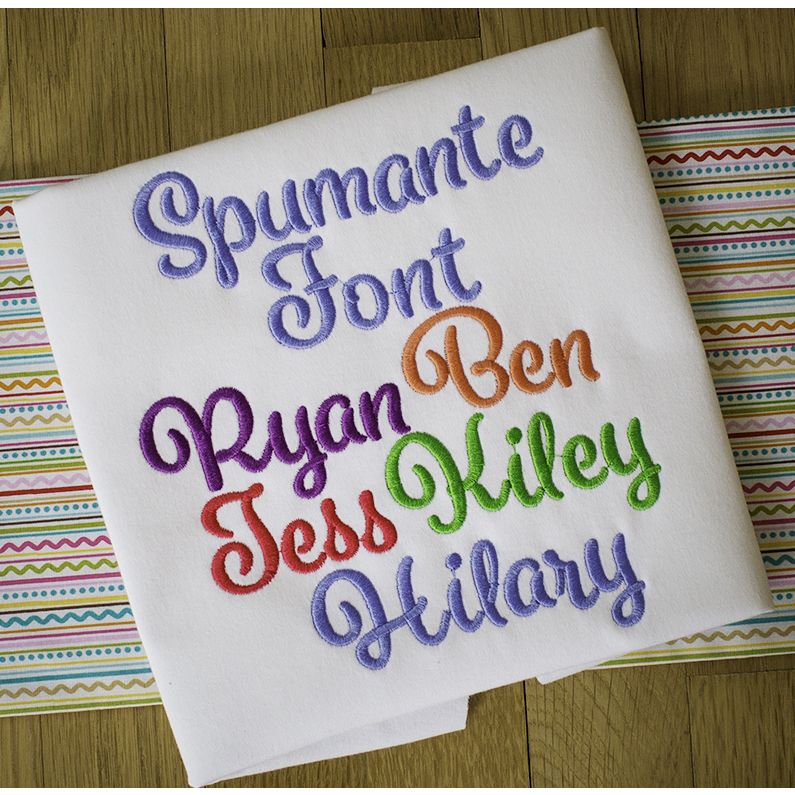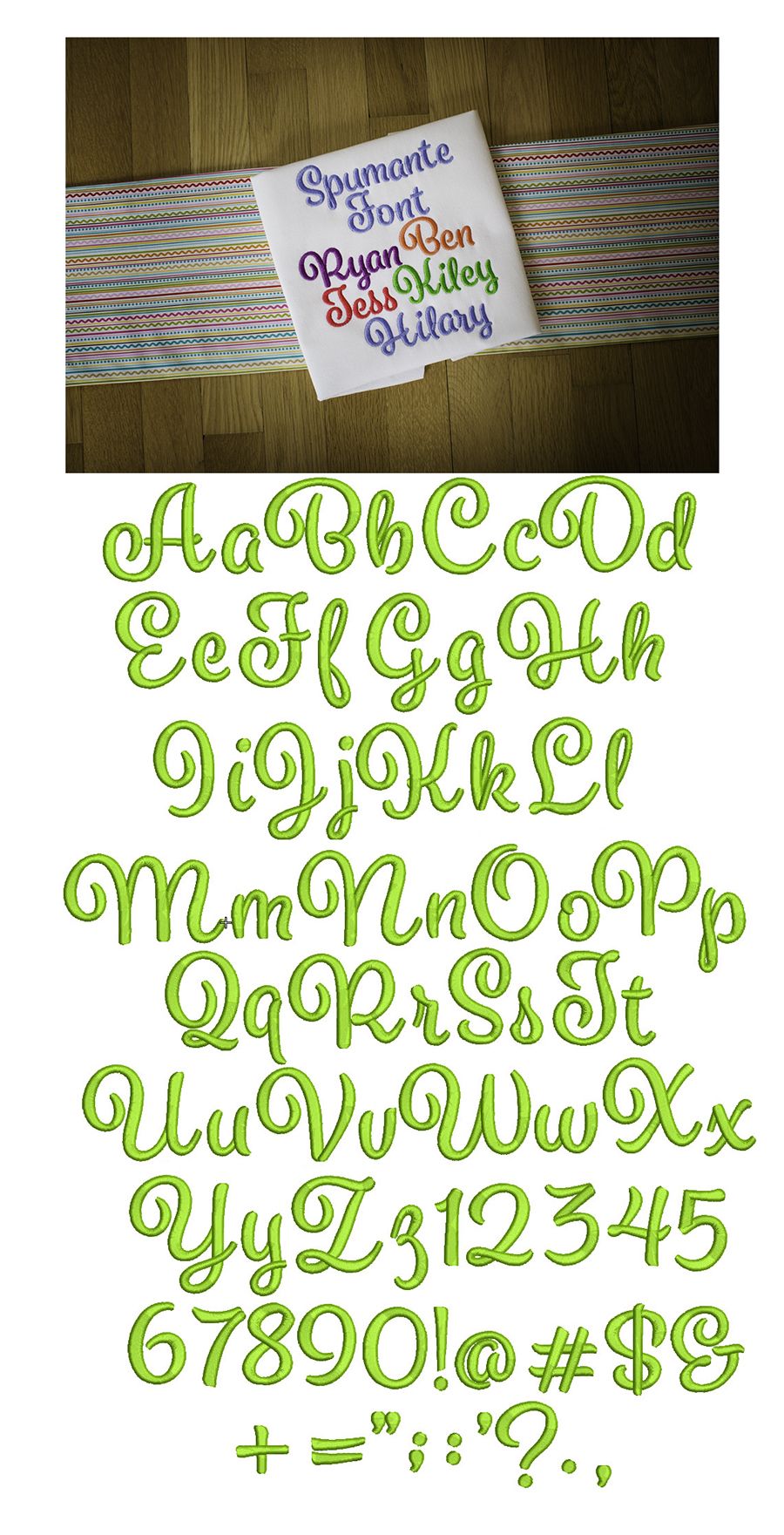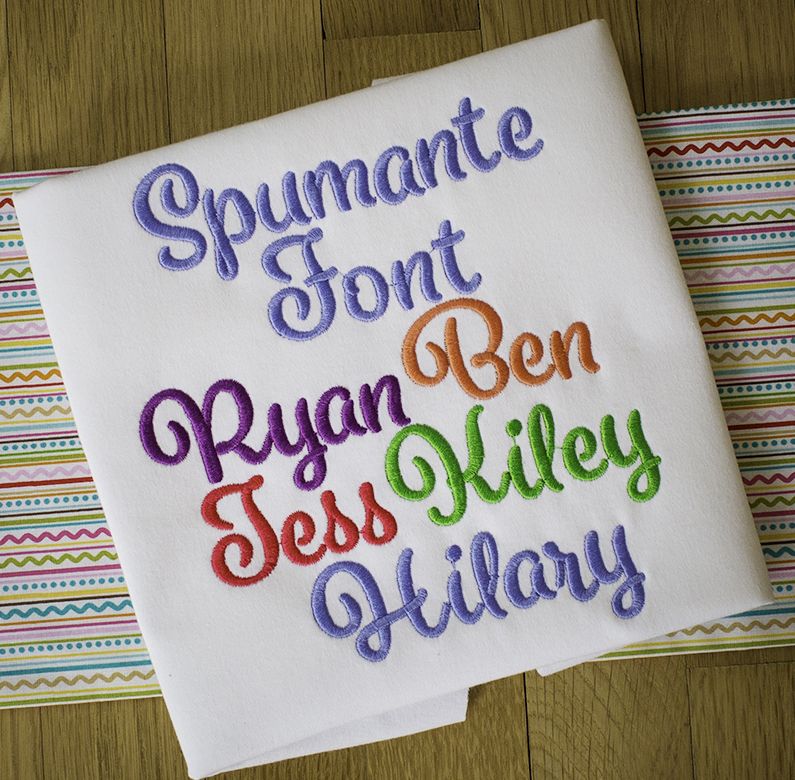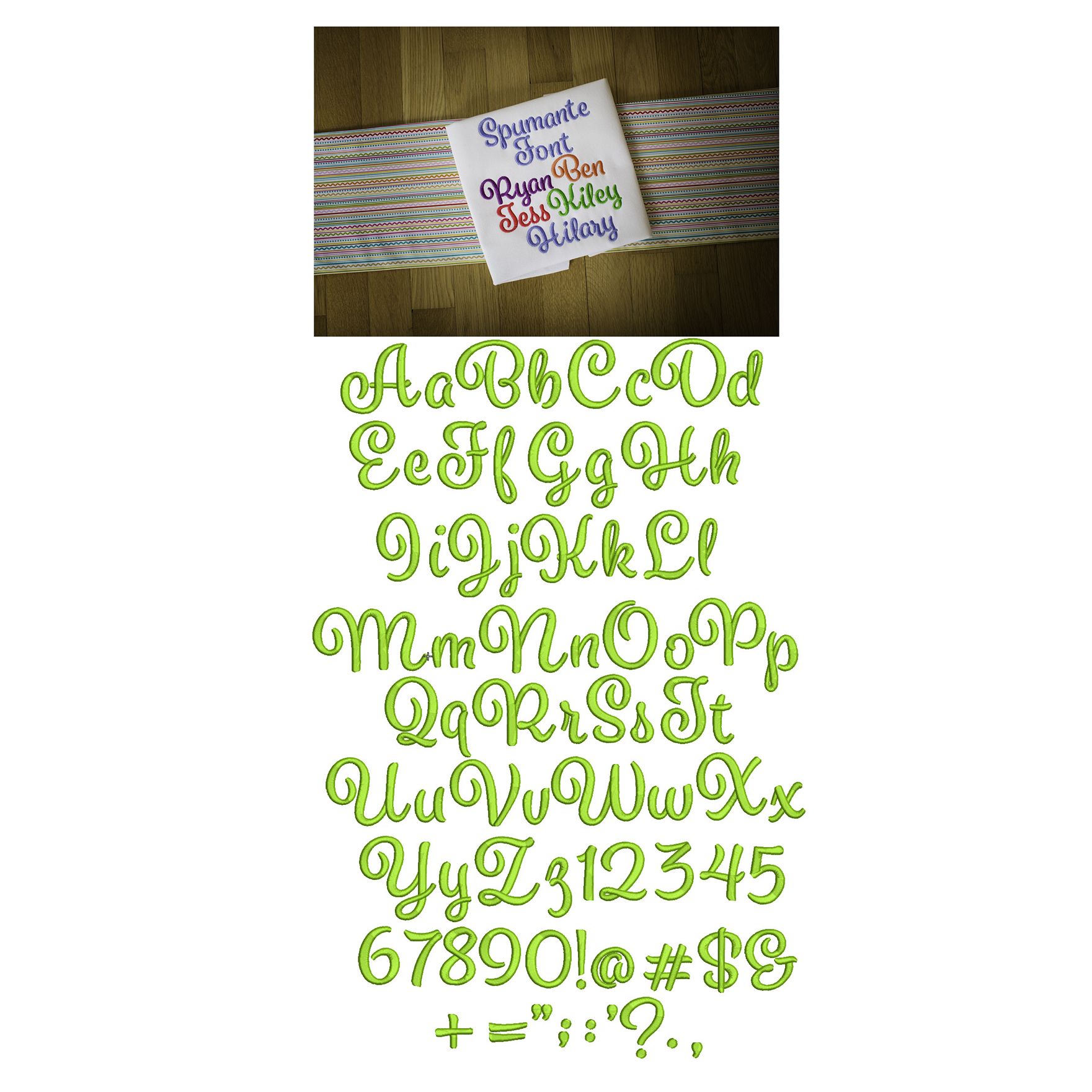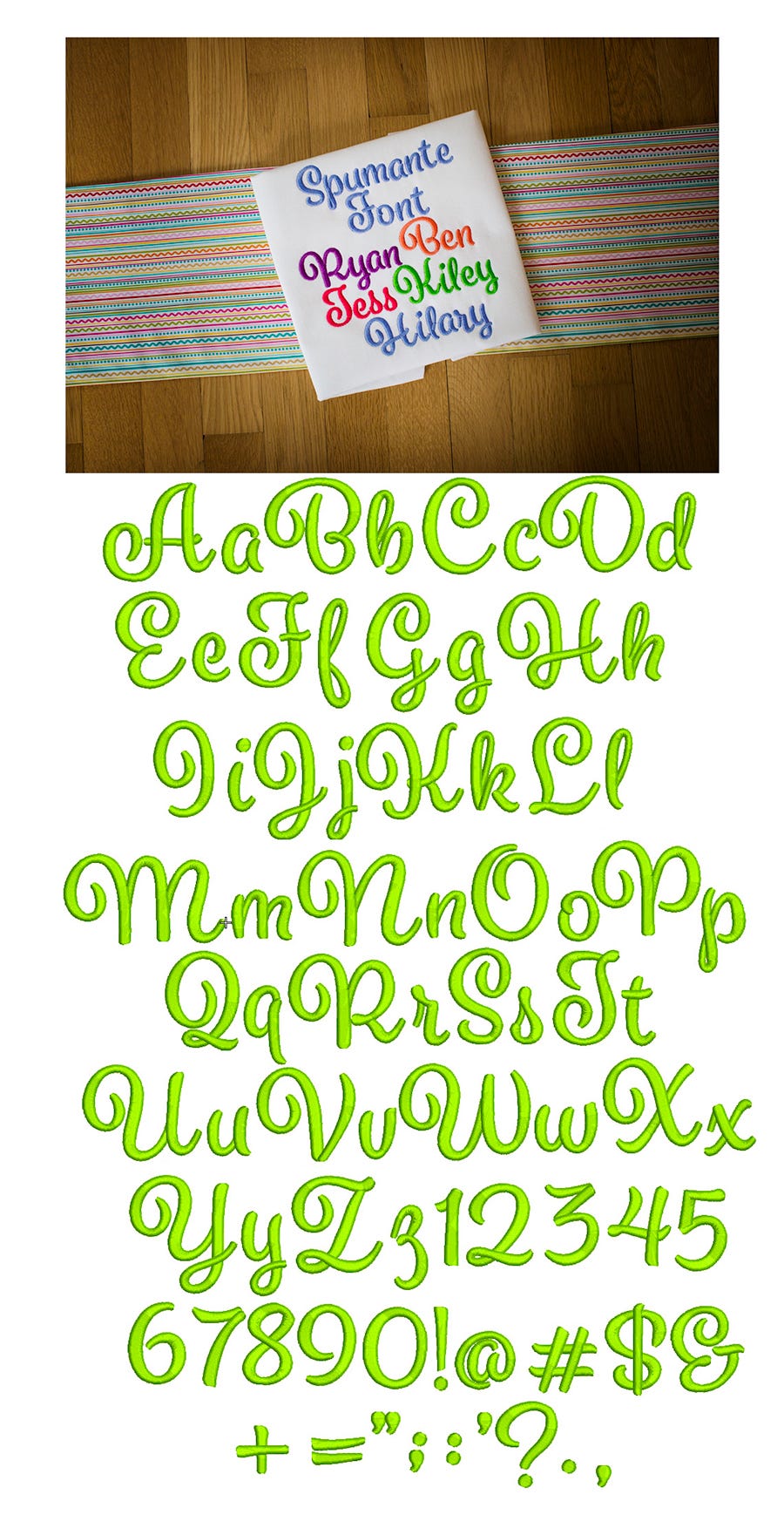
Spumante Satin Stitch Embroidery Font
A really sweet and clean script font. One of my favs! All of our fonts are 100% manually digitized to ensure the highest quality.